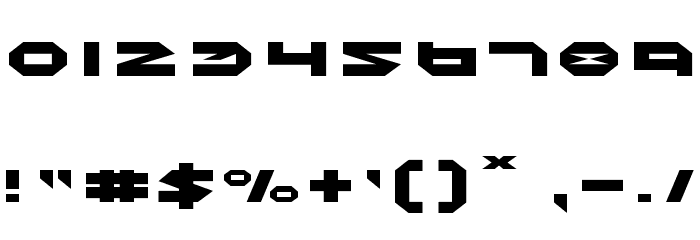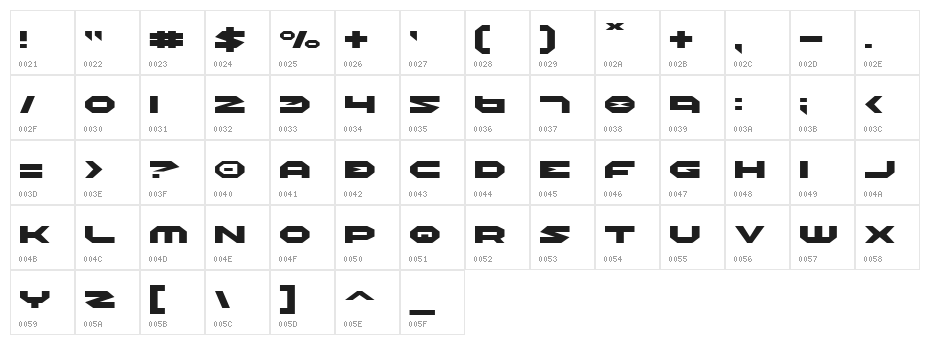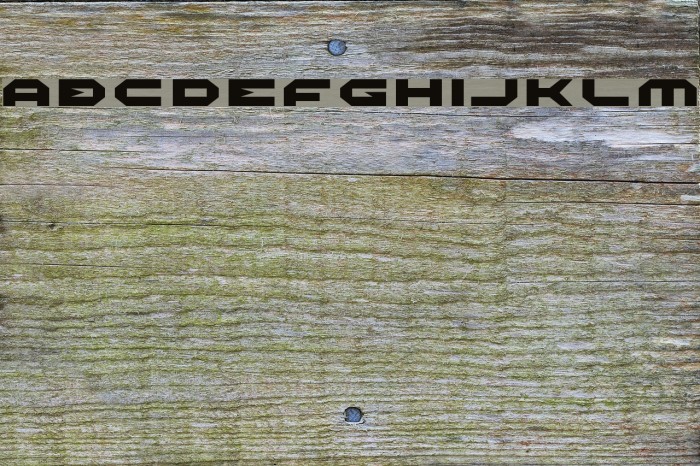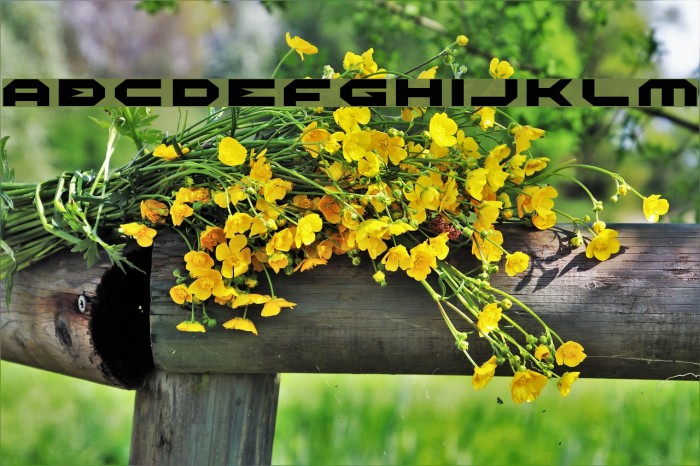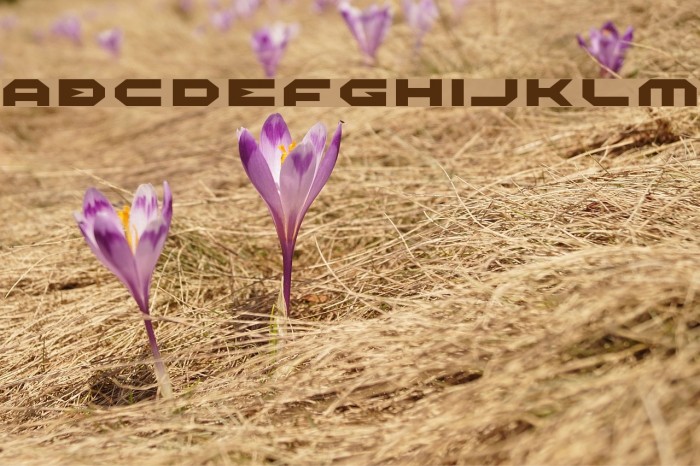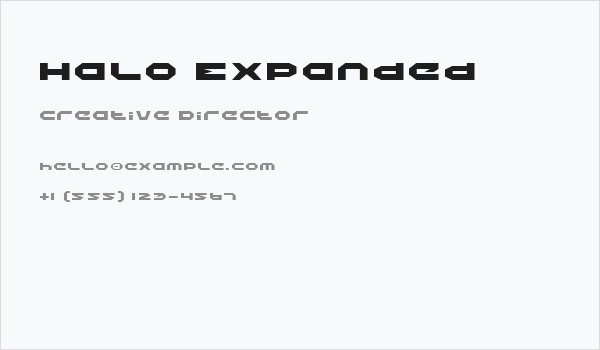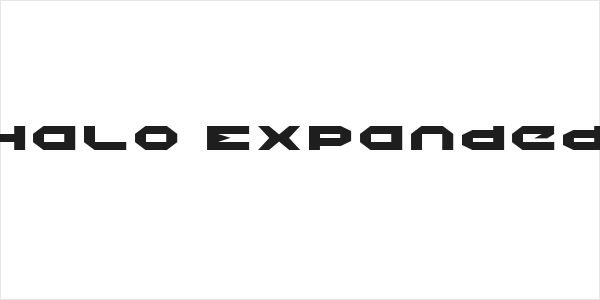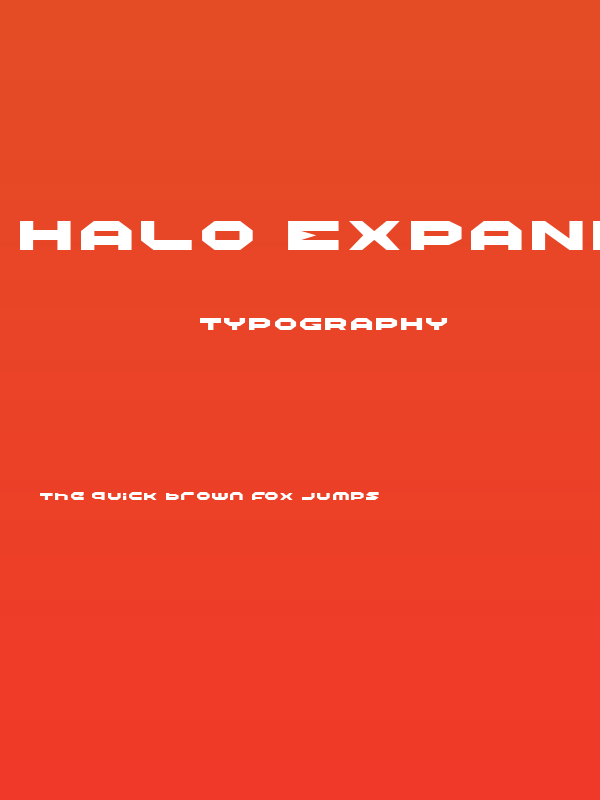
Halo Expanded Font
Halo Expanded Description
This font features a bold and futuristic design with angular, geometric shapes that give it a distinct, modern appearance. The characters are uniformly expanded, creating a sense of strength and stability. The uppercase and lowercase letters maintain a consistent style, with sharp edges and a blocky structure. Numbers and special characters follow the same design principles, ensuring a cohesive look across all glyphs. The font's unique style makes it ideal for projects that require a strong visual impact.
| Overall Style | Futuristic |
| Proposed Projects | Ideal for sci-fi themed designs, video game titles, posters, and branding that requires a modern, impactful look. |